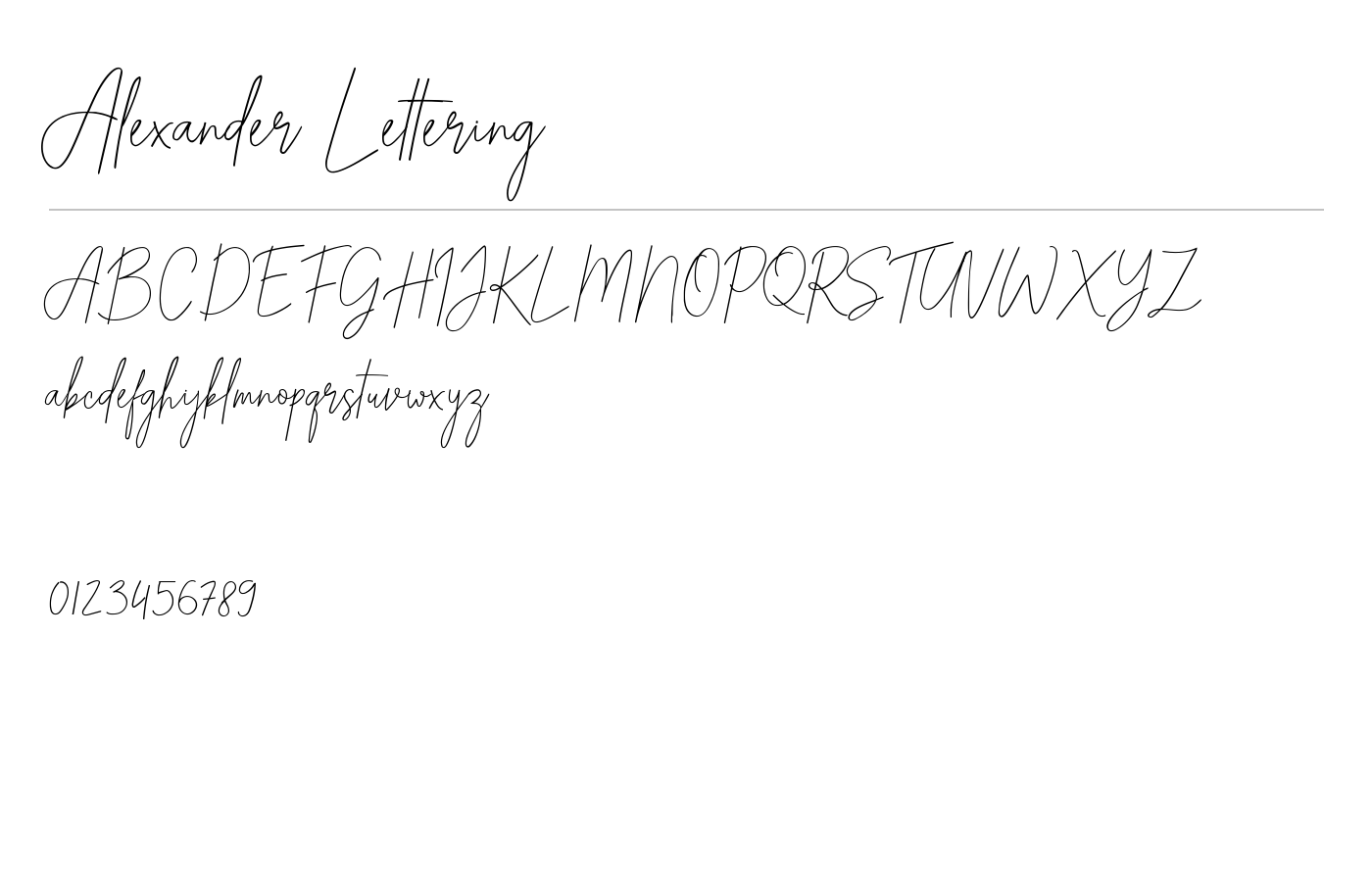
Alexander Lettering is a delicate, modern script font with a handwritten feel, featuring slender, tall letterforms and smooth, flowing strokes. Its elegant and airy style makes it perfect for invitations, branding, and editorial use where a personal, refined touch is desired. This font adds a graceful, stylish vibe that works beautifully in fashion, beauty, and luxury design projects.
Alexander Lettering Font
About Alexander Lettering Font
| Font family | Alexander Lettering Font |
| Designer | AminMario Studio |